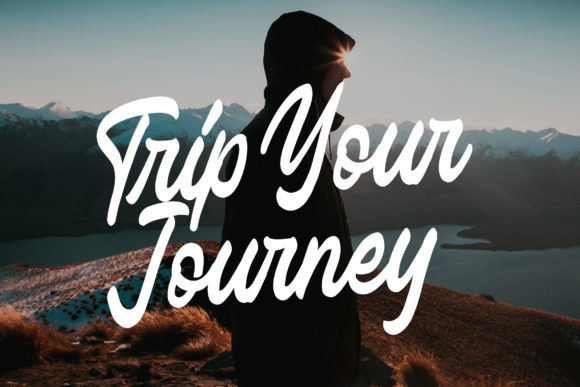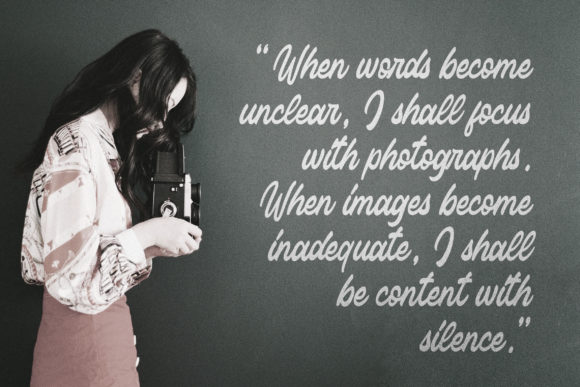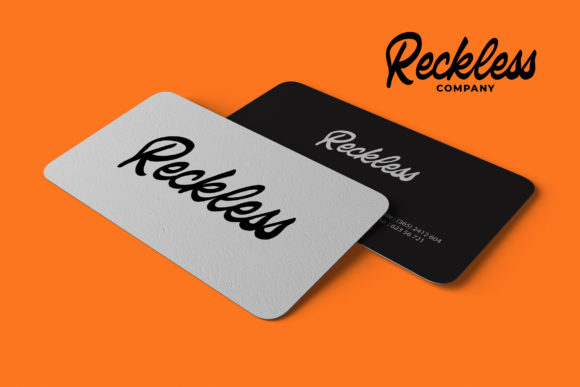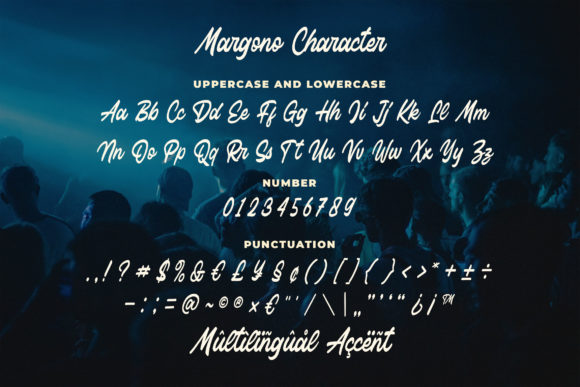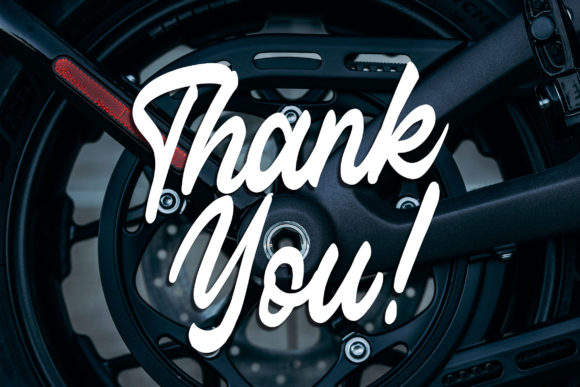
HomeScript FontsMargono Font Script Fonts Margono Font FacebookXPinterestWhatsApp Margono Font Poster 2 Margono Font Poster 3 Margono Font Poster 4 Margono Font Poster 5 Margono Font Poster 6 About Margono Font Margono is a smooth script that works best for signatures, posters, branding, logotype or advertisements! DOWNLOAD NOW People also explored Love Language Font Devilion Font Christmase Font Bristol Signature Font Ceu Gense Font Choco Romance Font Beach Paradise Font Peace on Earth Font You Love Font 390 0 TagsMargono Font Previous articleHand Paint FontNext articleBoldka Script Font LEAVE A REPLY Cancel reply Comment: Please enter your comment! Name:* Please enter your name here Email:* You have entered an incorrect email address! Please enter your email address here Website: Save my name, email, and website in this browser for the next time I comment. Personal Use Free Cuttering Personal Use Free Read more about this font Pompom Personal Use Free Read more about this font Stone Garden Personal Use Free Read more about this font Madison Script Personal Use Free Read more about this font BLOG Best Fonts for YouTube Videos: Make Your Thumbnails Stand Out Best Fonts for YouTube Videos: Make Your Thumbnails Stand Out Choosing the right font can make a massive difference in how your YouTube videos perform.... The 10 Best Handwriting Fonts to Add Personality to Your Designs Top 7 Google Fonts Alternatives for Faster and Privacy-Friendly Web Design (2025) Best Fonts for T-Shirt Design – Top 2025 Picks